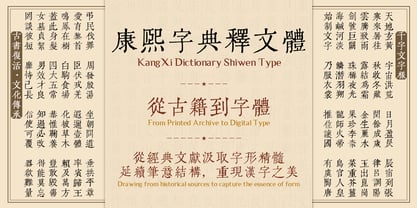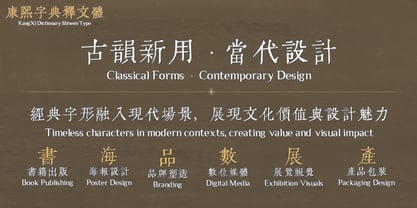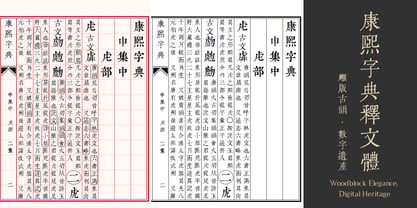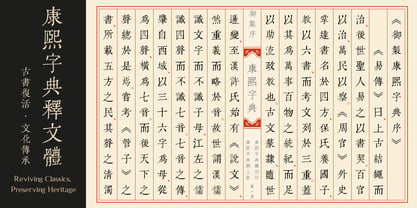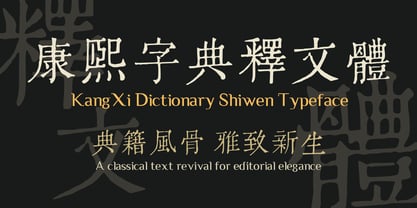
KangXi Dictionary Shiwen
Rediscovering the Emperor’s Script: KangXi Dictionary Shiwen
A Monumental Revival of Chinese Typographic History
The KangXi Dictionary (1716 AD) stands as the ultimate authority on the Chinese writing system, commissioned by the KangXi Emperor of the Qing Dynasty. Now, the KangXi Dictionary Shiwen brings the soul of the original "Wuying Palace Edition" into the digital age, offering a sophisticated bridge between Eastern tradition and modern typography.
The "Shiwen" Distinction Tailored for clarity and academic elegance, the Shiwen (释文) style focuses on the explanatory text within the dictionary. It preserves the unique "woodcut" texture—where the ink meets the grain of the pear-wood blocks—offering a tactile, historical warmth that modern, sterile fonts cannot replicate.
Key Technical Features:
• Initial Character Set: This first phase release includes over 15,000 essential characters, meticulously selected to cover all standard modern usage and the most frequent historical nomenclature.
• A Living Heritage Project: This release marks the first stage of a monumental reconstruction. By purchasing this font, you are supporting an ongoing effort to eventually encompass the dictionary’s full 47,043-character set in future updates.
• Hand-Engineered Precision: Every stroke has been refined to maintain the balance between the "Songti" (Serif) structure and the organic irregularities of 18th-century imperial craftsmanship.
• Authentic Bibliographic Spirit: Rather than pursuing sterile digital perfection, this revival focuses on capturing the "Shenyun" (divine spirit) of the original antique prints. It preserves the natural, lively essence of imperial woodblock carving, ensuring each character radiates a sense of historical depth and scholarly elegance.
Ideal Design Uses:
• Premium Publishing: Perfect for historical novels, academic journals, and museum exhibition materials.
• Cultural Branding: Ideal for high-end tea packaging, traditional medicine, and luxury heritage goods.
• Art & Posters: Its bold, authoritative presence makes it a standout choice for book covers and exhibition titles.
Designed by Tan Keong Khon Born from a passion for preserving cultural heritage, this revival ensures that the KangXi legacy continues to inspire designers worldwide in the 21st century.